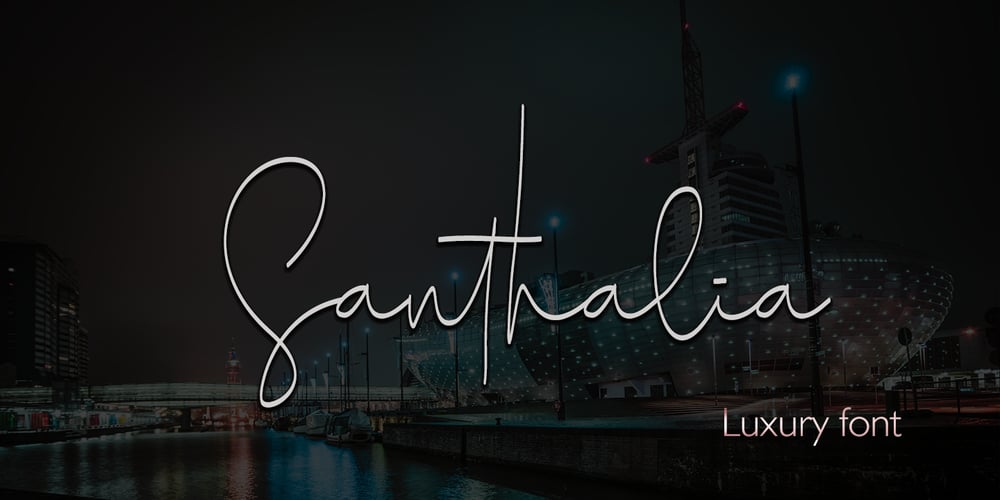
Santhalia Font Family was designed by Muhammad Akbar and published by Sinfa. Santhalia contains 1 styles and family package options. If you have a new idea to create a logo and brand and other craft needs, this font looks attractive, cute, and elegant. This font also includes a touch of the hand that is so unique!